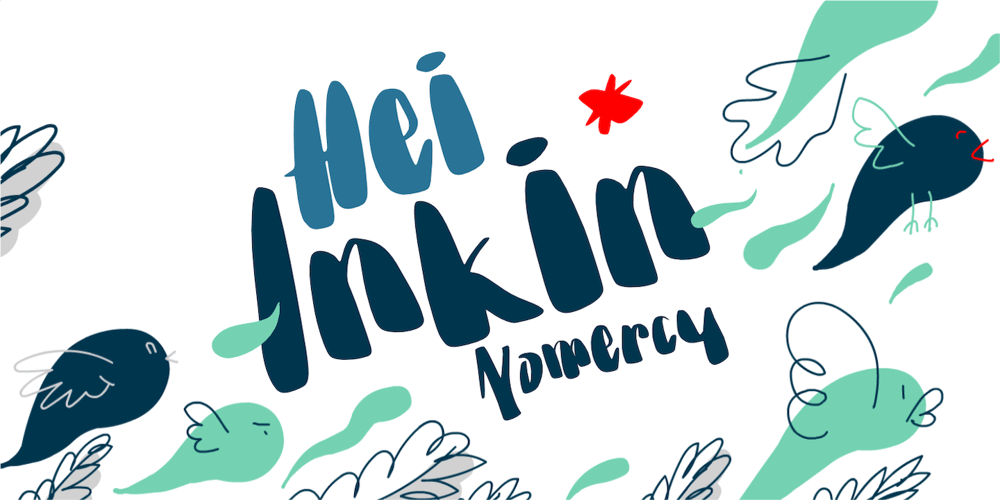
No Mercy Font Family was designed by Wahyu Eka Prasetya, Afiat Sukmaraga and published by Hati. No Mercy contains 1 styles and family package options. Introducing a versatile hand-drawn font that combines light and thick strokes to create a playful yet refined look, perfect for a wide range of creative projects. This typeface captures the charm of hand-crafted letters, making it ideal for adding a personal touch to your designs. The uneven thickness in the strokes brings a sense of authenticity, giving your work a unique, organic feel. Whether you’re designing logos, posters, social media graphics, or packaging, this font adapts seamlessly to various styles, from modern and trendy to casual and fun. Its youthful energy and dynamic strokes make it a great choice for projects aimed at a younger audience, or for any design that needs a fresh, lively touch. With its blend of character and versatility, this font is sure to become a favorite in your design toolkit. Enjoy